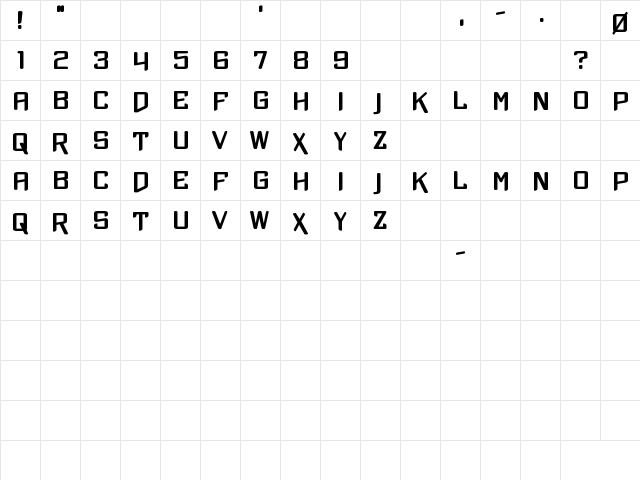
Xtreme Chrome Regular Font Preview
Xtreme Chrome Regular
Design Context for Xtreme Chrome Typeface
Xtreme Chrome offers clean, dependable letterforms without strong stylistic allegiance, making it a practical choice for designers who need flexibility.
Pro Tip: Use Xtreme Chrome in both headline and body roles to test its range before committing to a single application.